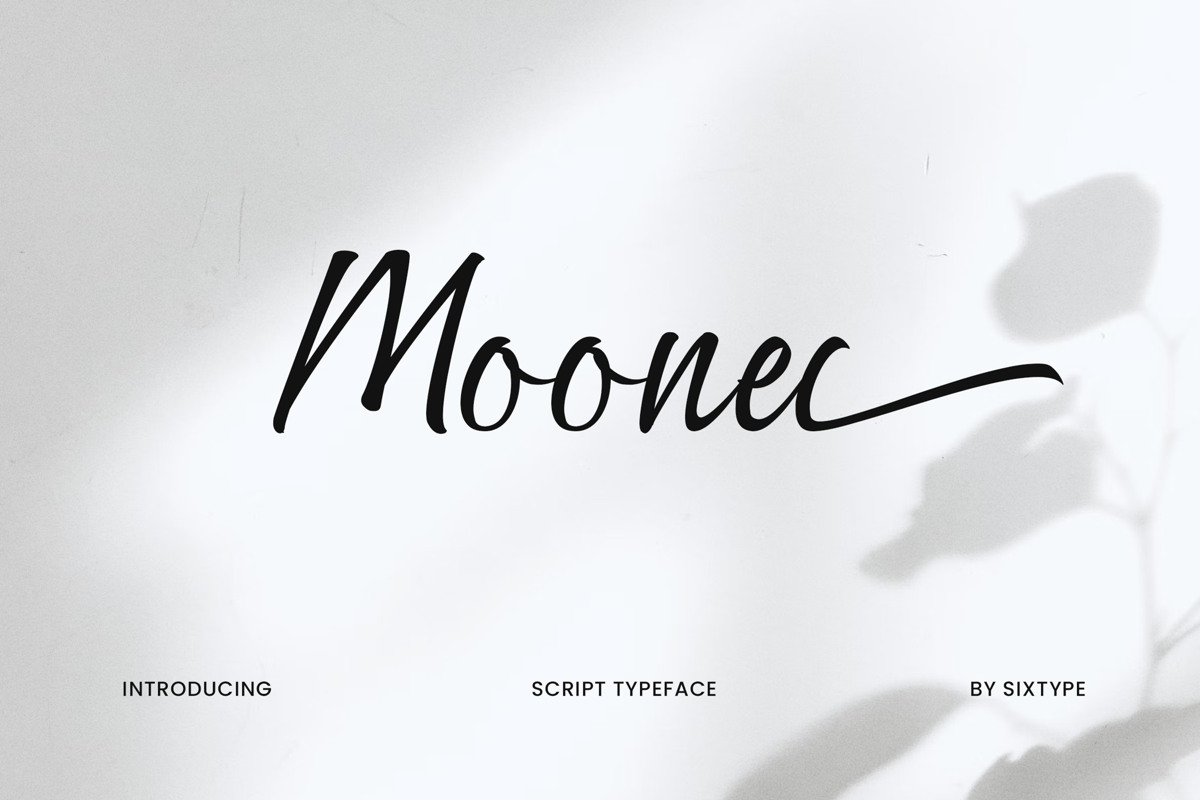
Moonel - Script Typeface
Elevate your designs with Moonel, a luxurious contemporary script font that brings sophisticated calligraphic elegance to every project. Perfect for enhancing invitations, greeting cards, branding materials, business cards, quotes, posters, and various creative projects. This versatile typeface delivers the refined touch your designs deserve. Moonel offers an extensive array of alternative characters, meticulously crafted and organized into advanced OpenType features: Stylistic Sets Stylistic Al...